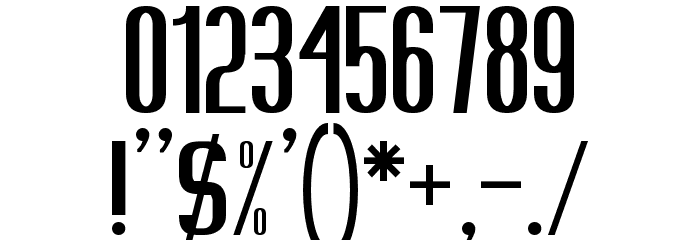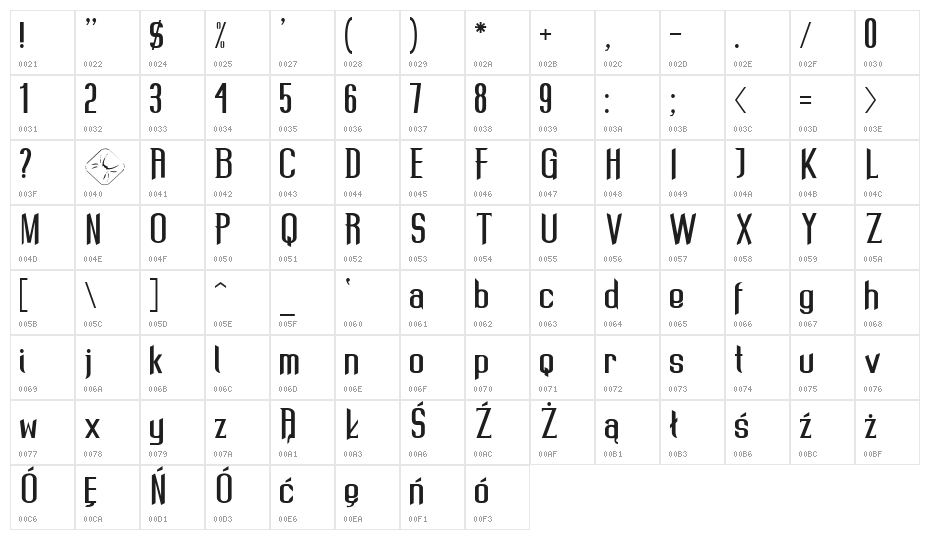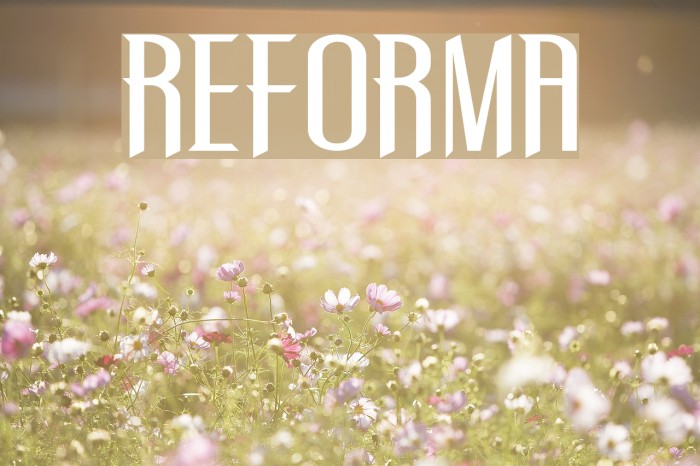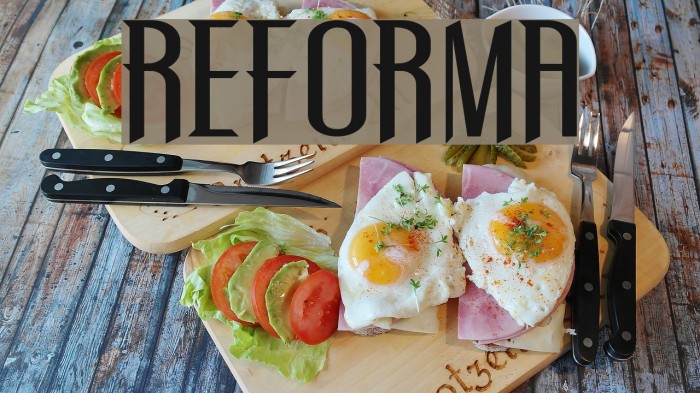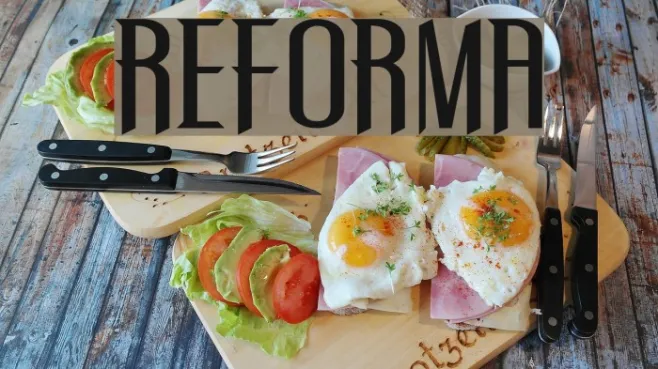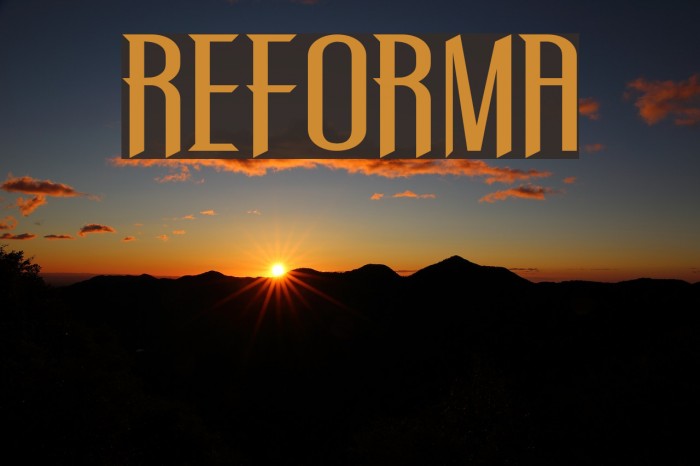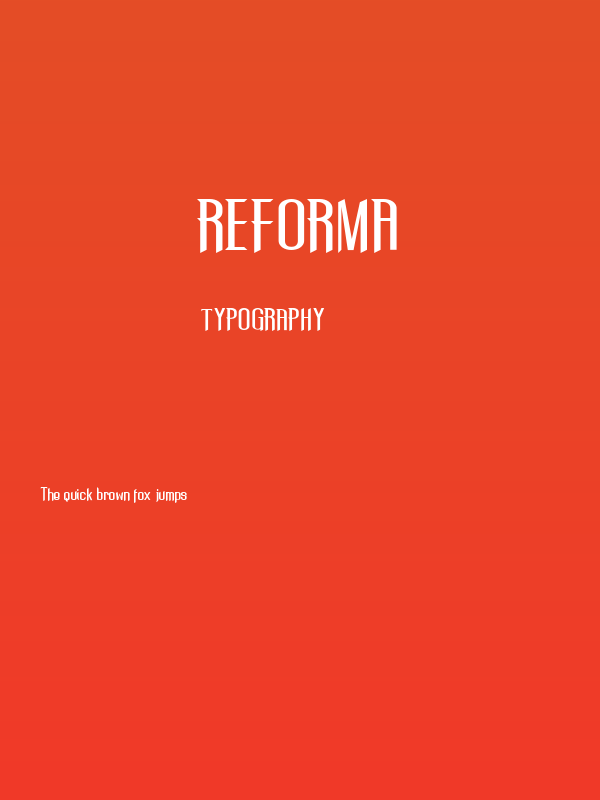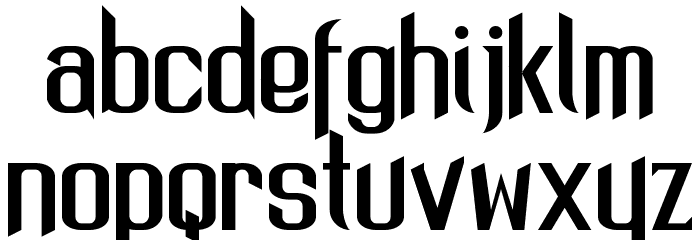
REFORMA Font
REFORMA Description
This font features a bold and striking design with a modern twist. The uppercase letters are tall and narrow, with sharp angles and a distinct geometric influence. The lowercase letters maintain a consistent style, offering a seamless transition between characters. The numbers are equally bold, ensuring readability and impact. Special characters are designed to complement the overall aesthetic, with a focus on maintaining the font's unique style. This font's high contrast and distinct character shapes make it ideal for attention-grabbing designs.
| Proposed Projects | Ideal for branding, posters, headlines, and any project requiring a strong visual impact. |